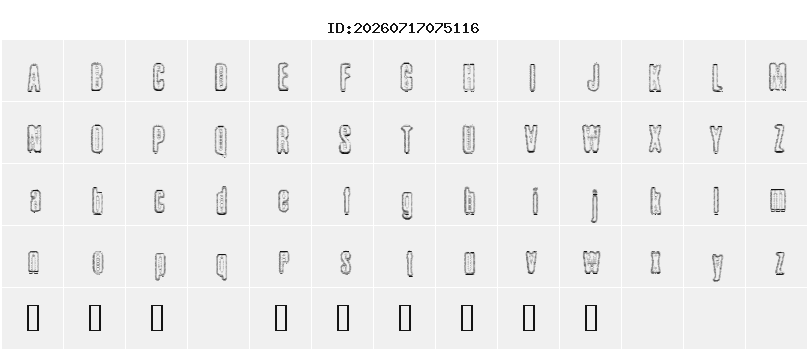
Brillo Preview
• Font Name: Brillo
• Font ID: Macromedia Fontographer 4.1 Brillo
• Full Font Name: Brillo
• Version: Macromedia Fontographer 4.1 10.07.99
• PostScript Name: Brillo
• Character Count: 55
About Brillo.ttf
Brillo.ttf is a modern, elegant sans-serif font designed for ultimate readability and visual harmony. Perfect for branding, headlines, web design, and print materials.